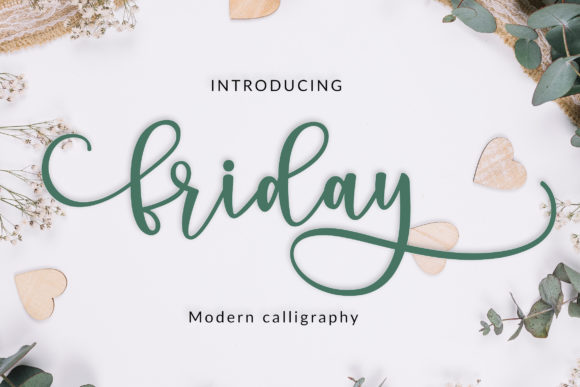
Venture into a world of exquisite typography with Friday Font, a charming script font family crafted with love by Amarlettering. This captivating creation is the perfect tool for designers seeking individuality and excellence in their projects.
Friday Font, as its name suggests, exudes the warmth and cheerfulness of a warm summer's day. Its effortless flow and delicate curves evoke a sense of casual elegance that will elevate your designs beyond the ordinary.
Meticulously crafted with an artistic flair, Friday Font boasts a range of stunning features that cater to your every creative whim.
* **Organic Beauty:** Friday Font's hand-lettered design exudes a distinctly personal touch, adding a layer of authenticity and charm to your compositions.
* **Visual Harmony:** The harmonious balance between thick and thin strokes creates a visual rhythm that draws the eye effortlessly through your designs.
* **Versatile Charm:** Friday Font seamlessly adapts to a diverse range of projects, from whimsical invitations and heartfelt letters to captivating branding materials and enchanting social media posts.
* **Expressive Swashes:** Unleash your creativity with Friday Font's captivating swashes, perfect for adding a touch of flair to your headlines, logos, and special design elements.
* **Stylistic Sets and Alternates:** Amplify your designs with Friday Font's wealth of stylistic sets and alternates, granting you the freedom to tailor your text to perfection.
Friday Font is more than just a collection of letters; it's an invitation to embark on an artistic journey, where your imagination knows no bounds. Whether you're a seasoned designer seeking a touch of elegance or a passionate hobbyist eager to bring your ideas to life, Friday Font is your perfect companion.
With Friday Font by your side, you'll transform your design projects into captivating works of art that leave a lasting impression on your audience. Embrace the beauty of Friday Font and let your creativity soar to new heights.